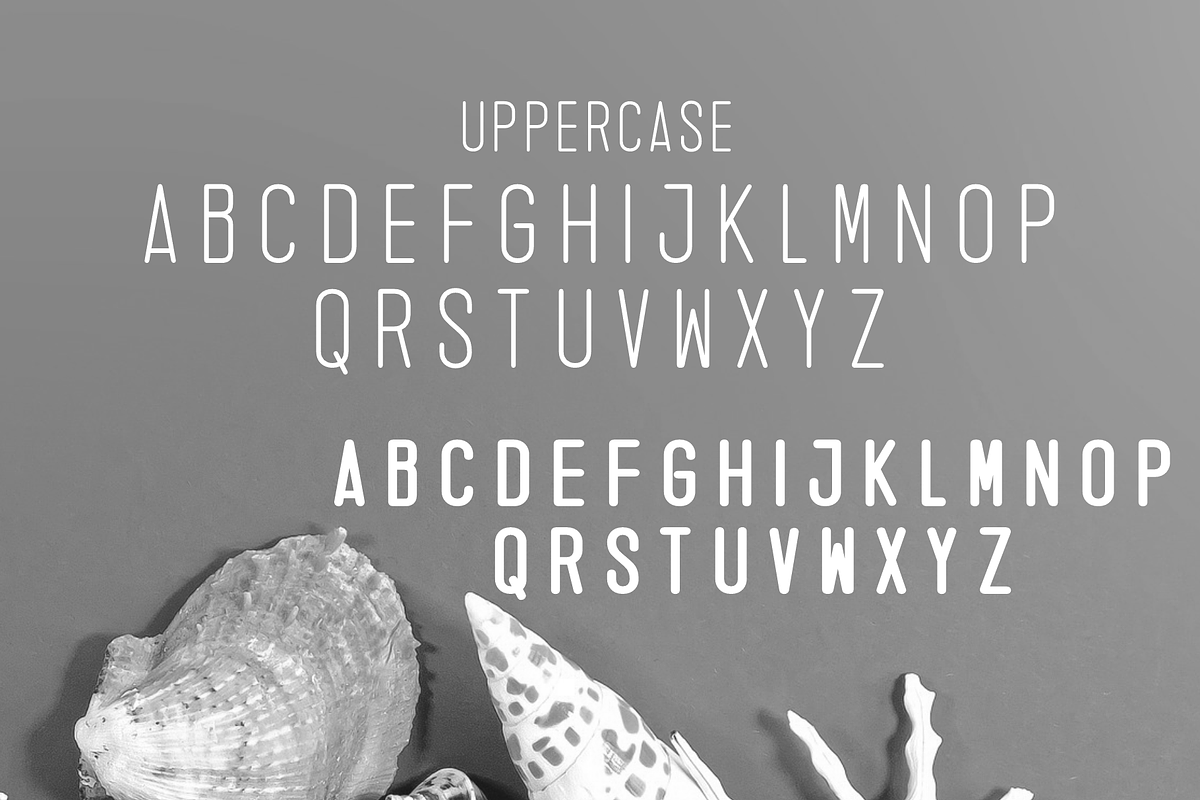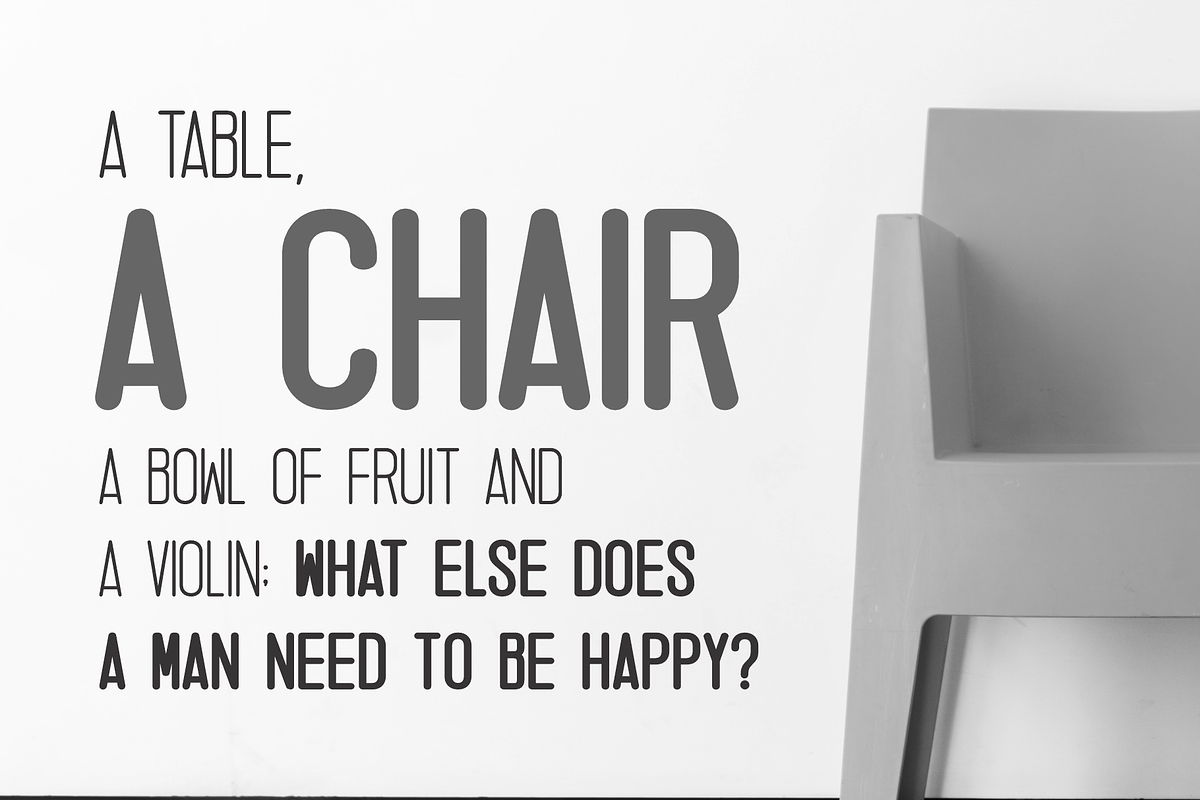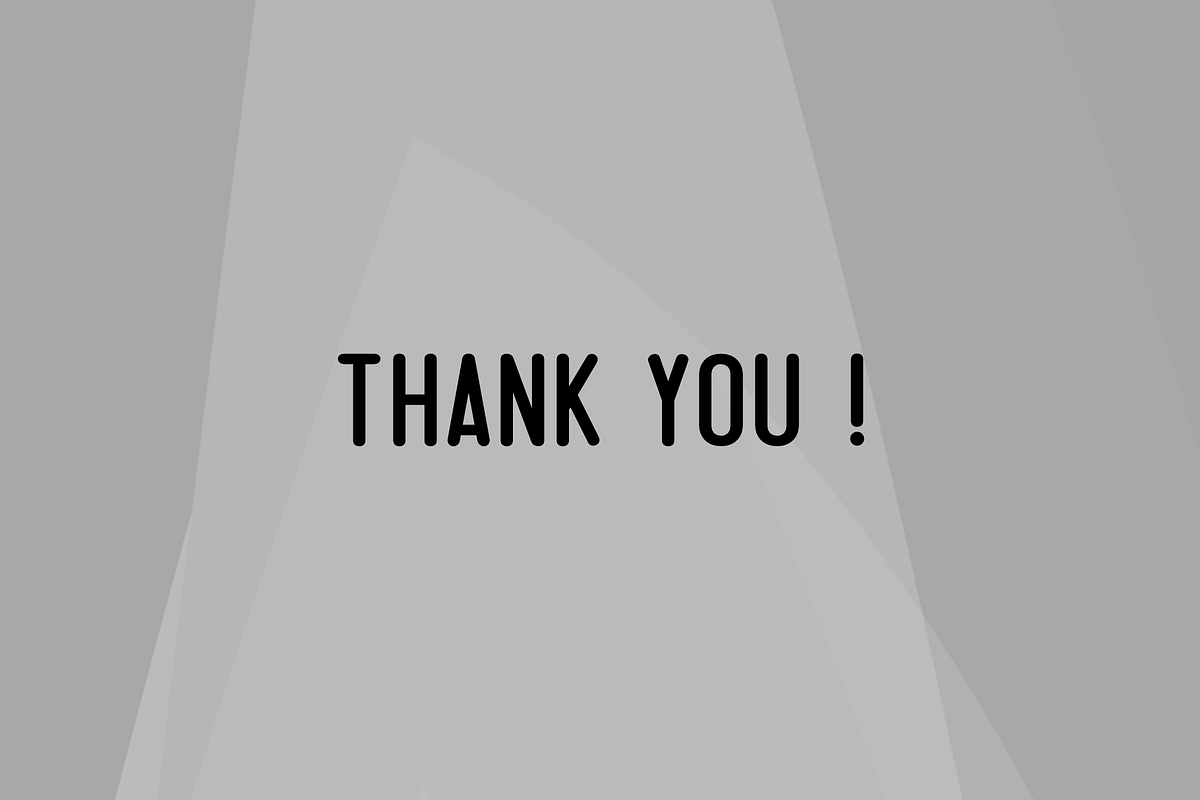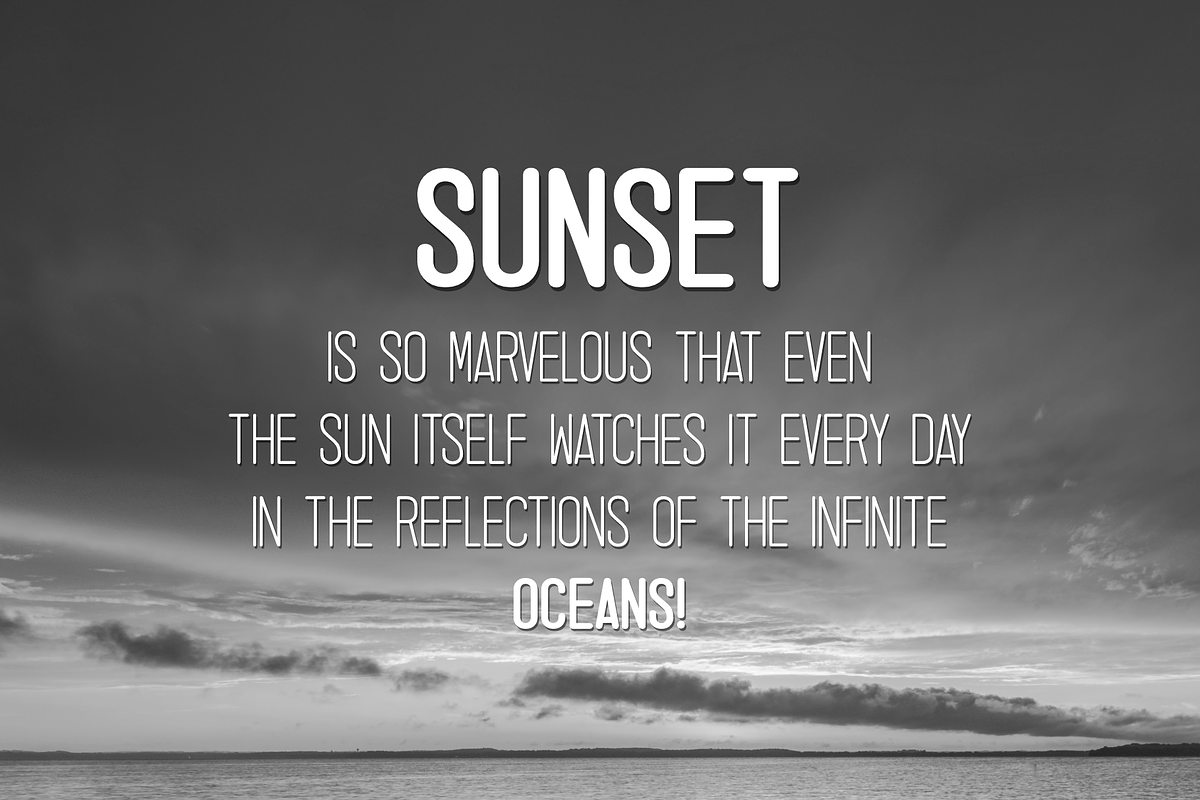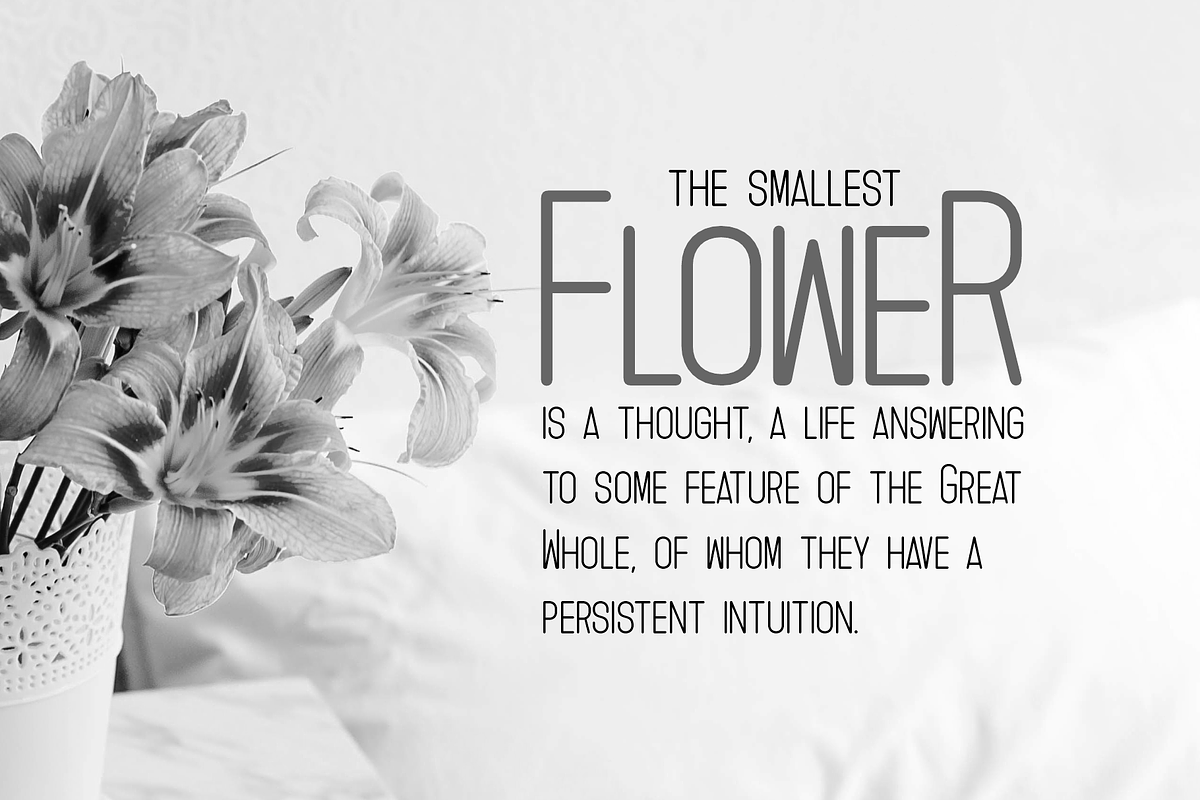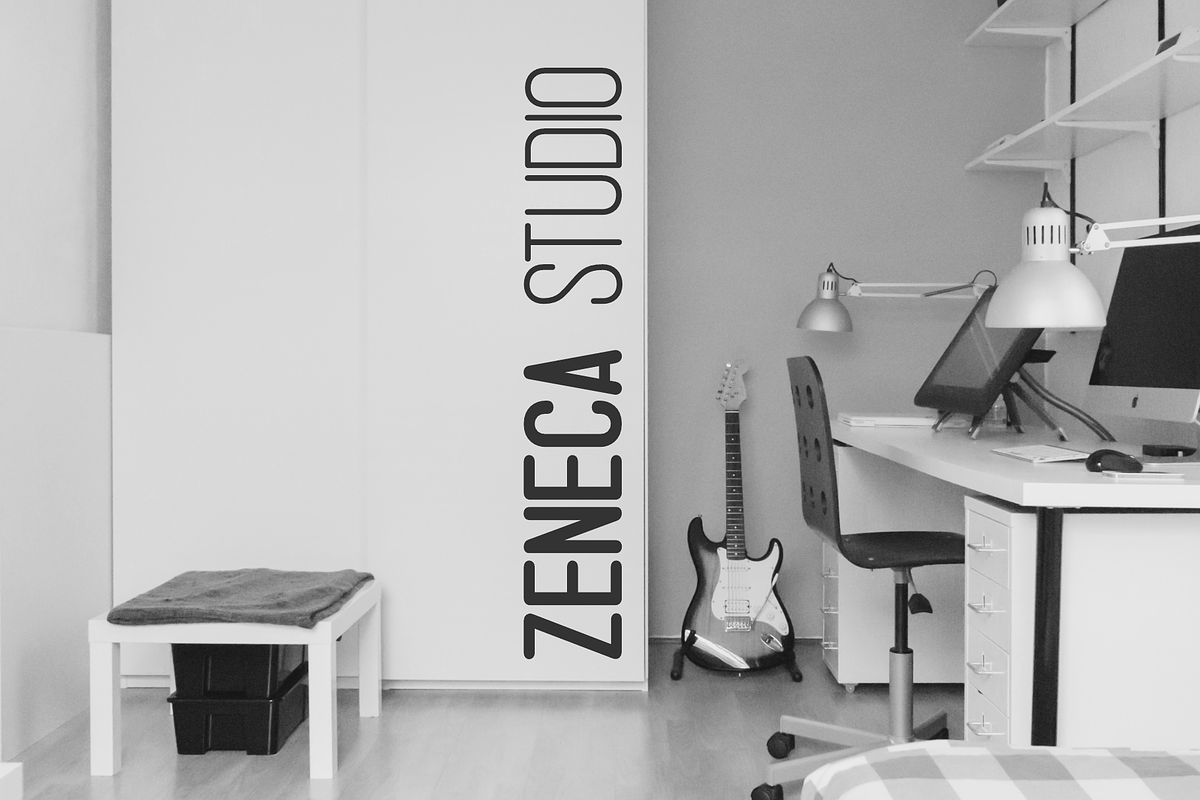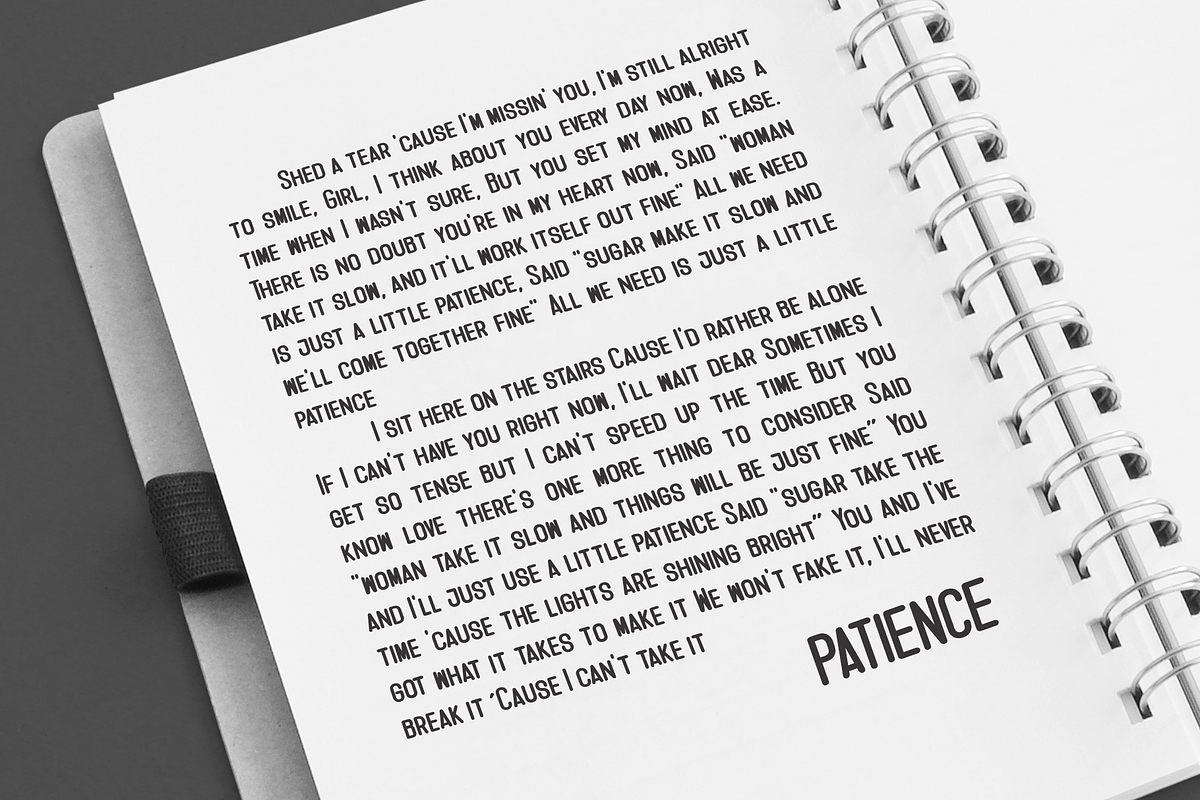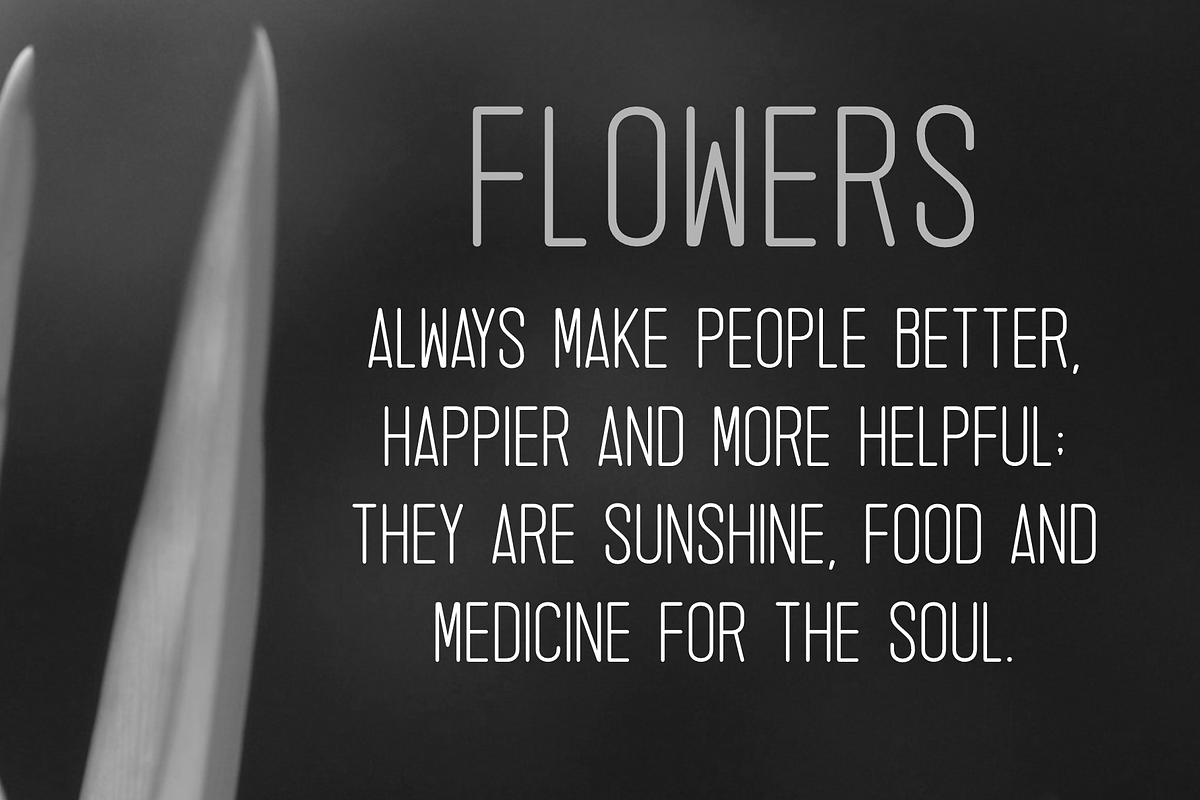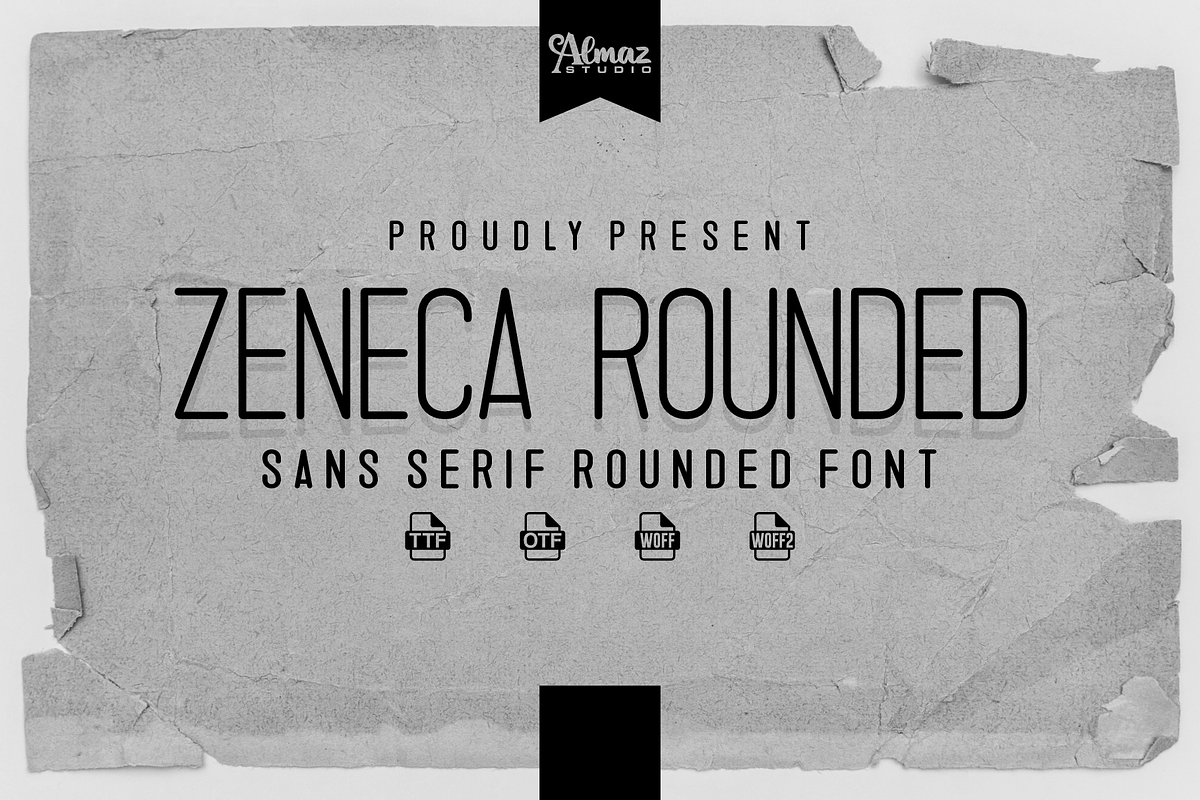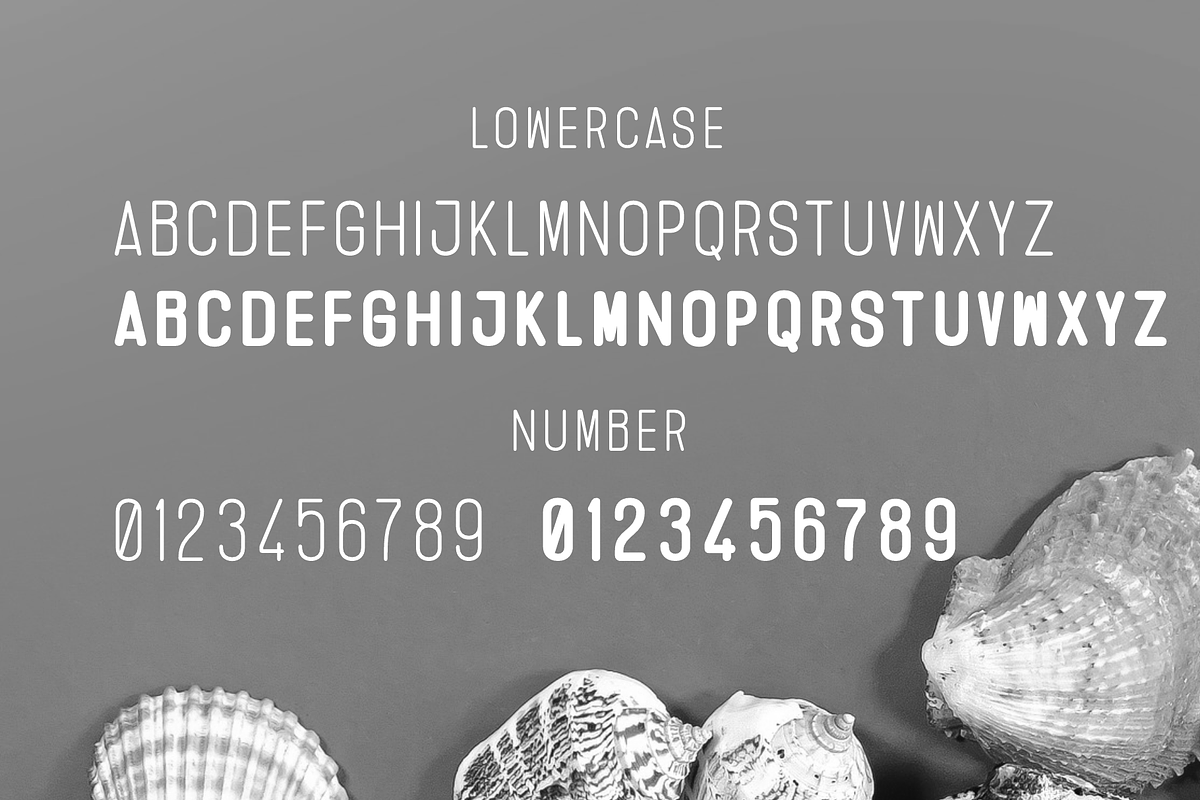
Zeneca Rounded
Zeneca Rounded is an ultramodern, rounded sans serif typeface. It was designed for maximum compression, allowing you to fit more words in a line than techno typefaces normally allow. Zeneca Rounded is at the normal typeface compression limit. Crammed is unusually compact. Crushed is ludicrously concentrated. Zeneca Rounded almost all current Latin-based languages are supported. This allows you to install the fonts on a computer and use them to create posters, web graphics, game graphics, t-shirts, videos, signs, logos and more.